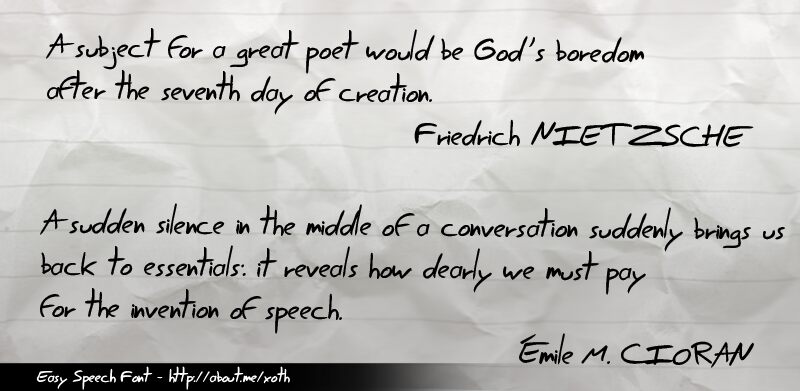
Easy Speech by Jean-Jacques "Xoth" Morello is a free brush script with fast, angular strokes and an unruly hand-painted silhouette. Sharp joins, long crossbars, and sudden changes in width give the lettering the snap of marker writing, with several letters extending into broad, sweeping gestures.
Street food, skate culture, and independent music are natural subjects for its restless drawing, making it useful for posters, apparel, and record artwork. In branding, it can turn a burger shop or live venue name into a loose, immediate signature.